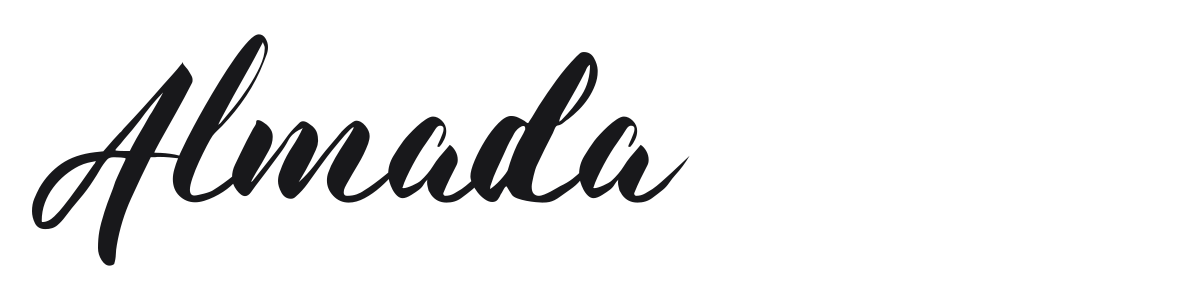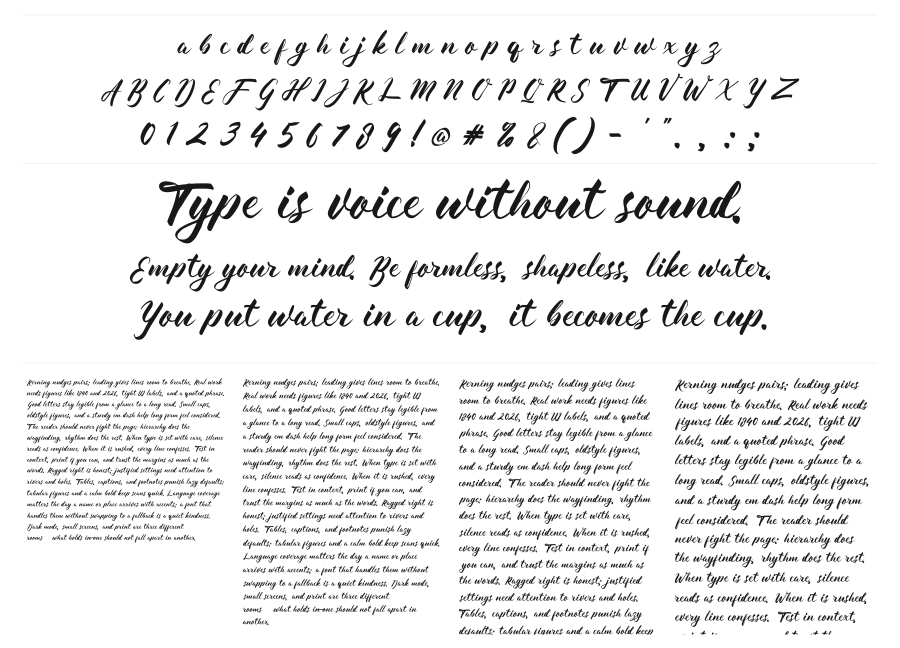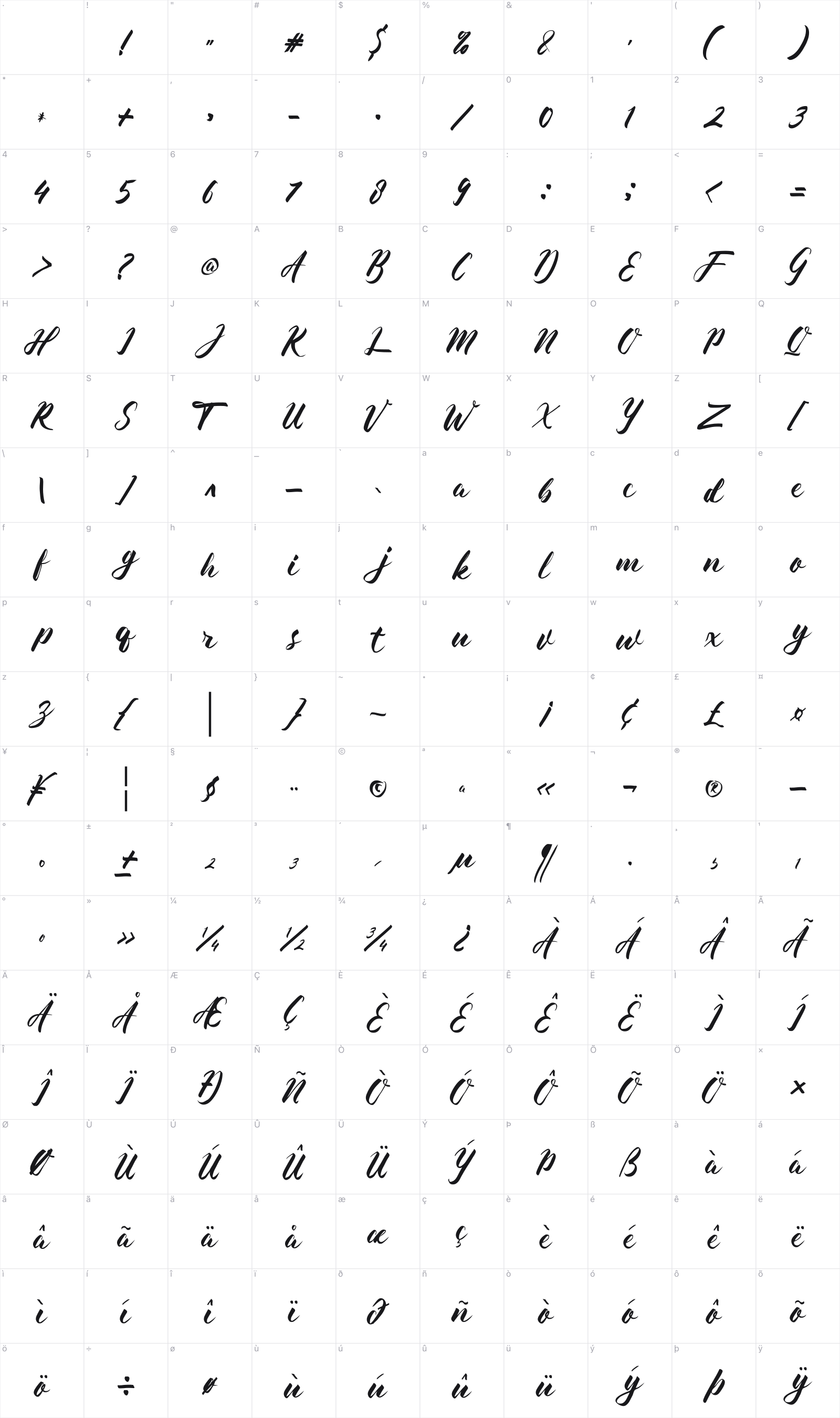
Almada
Almada is a bold brush script drawn with the energy and confidence of hand-lettered signage. Thick swelling downstrokes and wispy hairline upstrokes create a lively contrast that reads well at large sizes. The generous swashes and looping strokes give it a distinctly handcrafted warmth that suits branding, packaging, and editorial headlines.